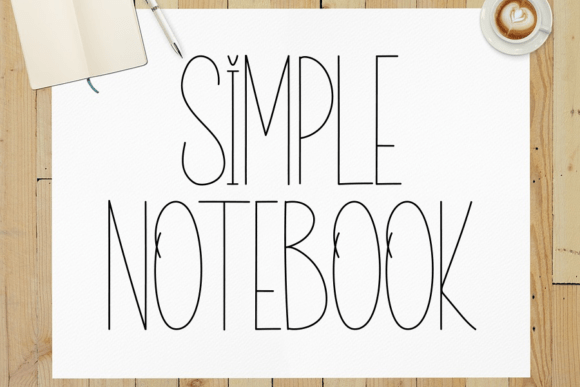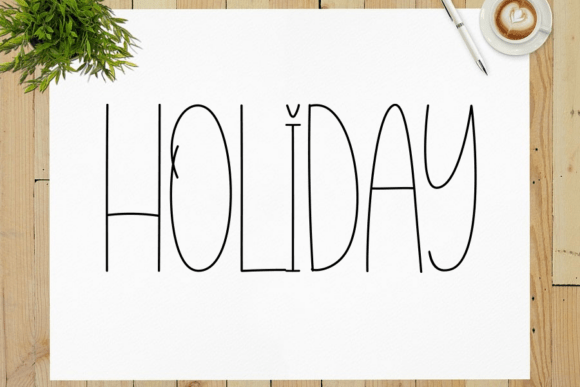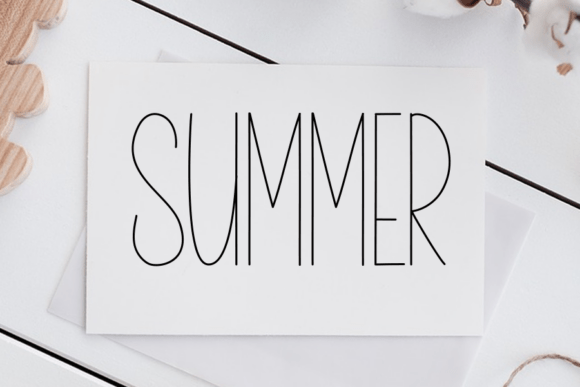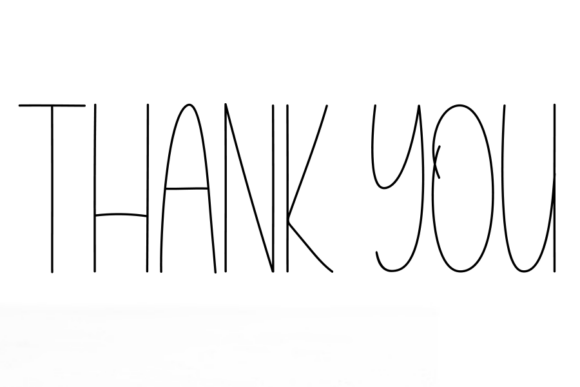
Introducing Beautiful Font: The Epitome of Modern Elegance
In the realm of typography, a font can make or break the visual identity of a design project. For those seeking a modern, chic, and effortlessly stylish aesthetic, Beautiful Font stands out as a striking and minimalist solution. This ultra-thin monoline construction font boasts a distinctive look that marries clean simplicity with a unique personality, making it perfect for a variety of design applications.
The Distinctive Characteristics of Beautiful Font
Beautiful Font is characterized by its tall, ultra-thin monoline construction, which gives it a sleek and modern appearance. The playful, rounded terminals add a touch of warmth and approachability, balancing out the font’s clean and simple lines. This blend of features results in a font that is both memorable and refined, capable of elevating any design project.
Ideal Applications for Beautiful Font
The versatility of Beautiful Font makes it suitable for a wide range of design projects. Some of the ideal applications include:
- Editorial Design: Beautiful Font is perfect for editorial design, adding a touch of elegance and sophistication to articles, magazines, and newspapers.
- Fashion Branding: The font’s modern and stylish aesthetic makes it an excellent choice for fashion brands looking to create a chic and memorable visual identity.
- Social Media Quotes: Beautiful Font’s clean and simple lines make it easy to read, even at smaller sizes, making it perfect for social media quotes and graphics.
- Modern Stationery: The font’s unique personality and elegant appearance make it an excellent choice for modern stationery, including invitations, greeting cards, and letterheads.
Why Choose Beautiful Font?
Beautiful Font offers several advantages that make it an attractive choice for designers and crafters:
- Unique Aesthetic: The font’s distinctive look sets it apart from more traditional fonts, allowing designers to create unique and memorable designs.
- Versatility: Beautiful Font’s versatility makes it suitable for a wide range of design applications, from editorial design to fashion branding.
- Ease of Use: The font’s clean and simple lines make it easy to read, even at smaller sizes, making it perfect for body text and captions.
- High-Quality Design: Beautiful Font is designed with high-quality craftsmanship in mind, ensuring that it will look great in any design project.
Tips for Using Beautiful Font Effectively
To get the most out of Beautiful Font, consider the following tips:
- Pair with Bold Fonts: Pair Beautiful Font with bold, contrasting fonts to create visual interest and hierarchy.
- Use for Headings and Titles: The font’s elegant appearance makes it perfect for headings and titles, adding a touch of sophistication to any design.
- Experiment with Colors: Beautiful Font looks great in a variety of colors, so don’t be afraid to experiment and find the perfect hue for your design.
- Pay Attention to Line Spacing: To maintain the font’s elegant appearance, pay attention to line spacing and ensure that it is consistent throughout your design.
Beautiful Font is a striking and minimalist modern font that offers a unique blend of clean simplicity and elegant personality. Its versatility, ease of use, and high-quality design make it an excellent choice for a wide range of design applications, from editorial design to fashion branding. Whether you’re a designer or crafter, Beautiful Font is sure to elevate your design projects and leave a lasting impression.